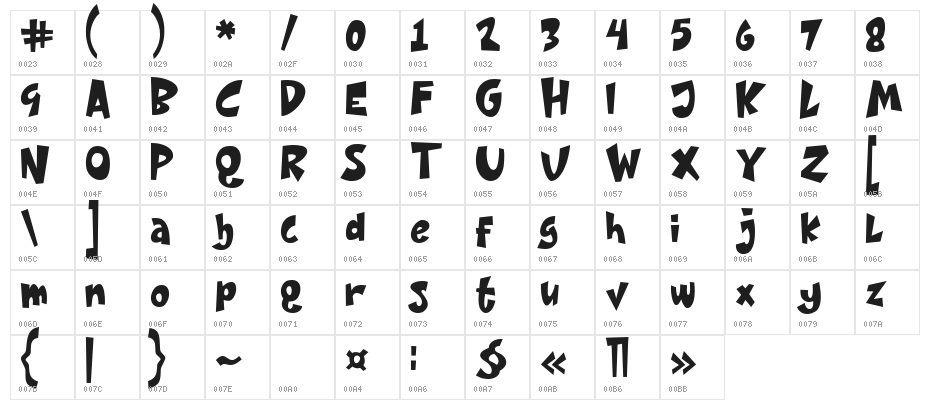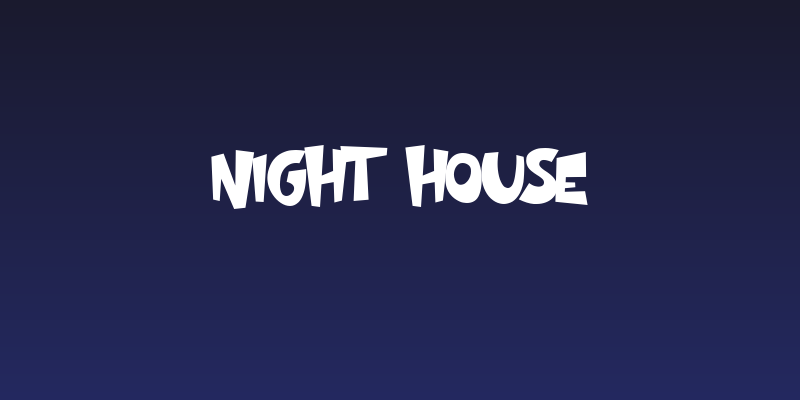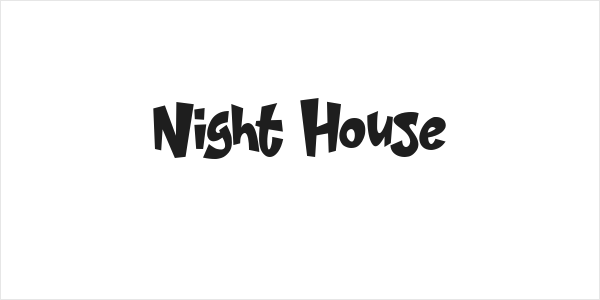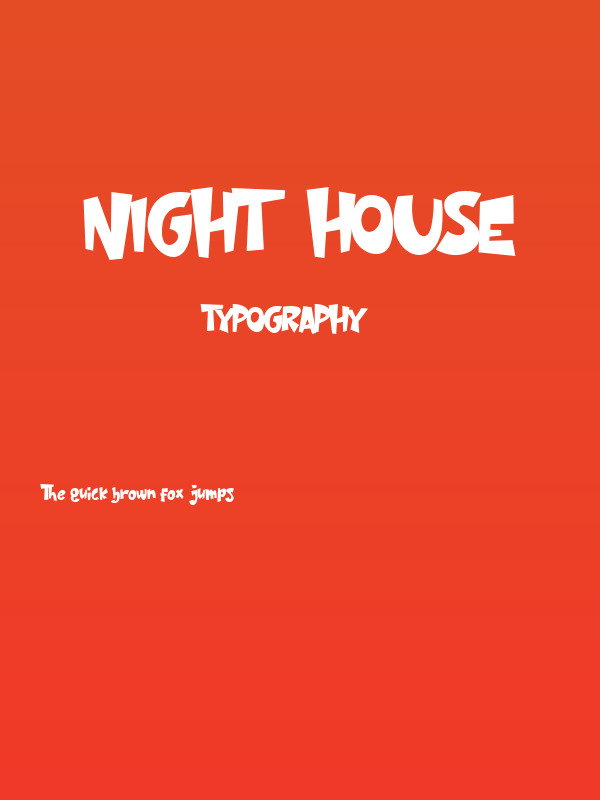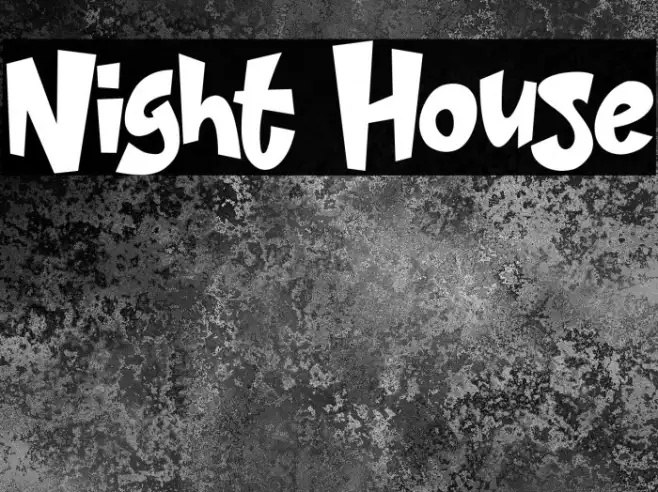
Night House Font
Night House Description
This font features a bold, playful style with exaggerated curves and angles, giving it a dynamic and energetic appearance. The characters are heavily stylized, with a cartoonish flair that makes them stand out. The uppercase letters are particularly striking, with sharp edges and varying stroke widths that add to the font's lively character. The lowercase letters maintain this whimsical style, ensuring consistency across the typeface. Numbers and special characters follow the same design principles, making them cohesive with the alphabet. This font is perfect for projects that require a fun and eye-catching look.
| Proposed Projects | Ideal for children's books, comic strips, playful branding, and party invitations. |